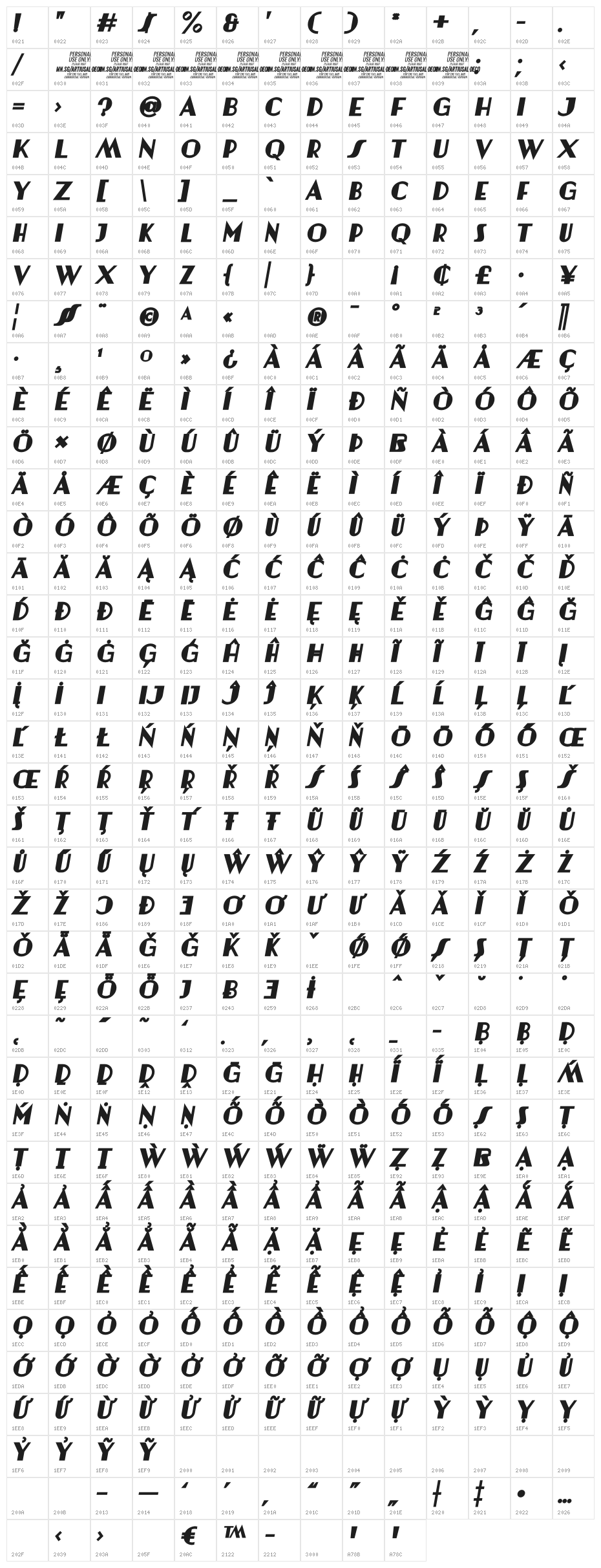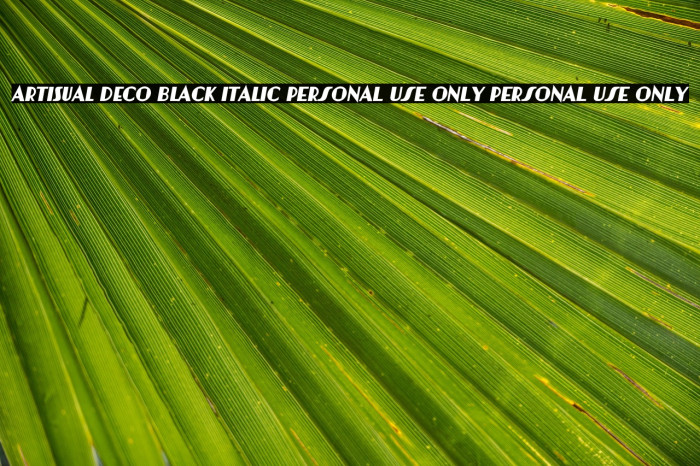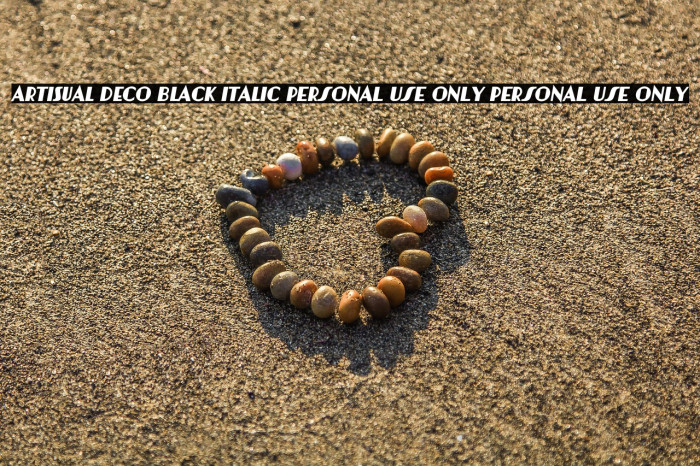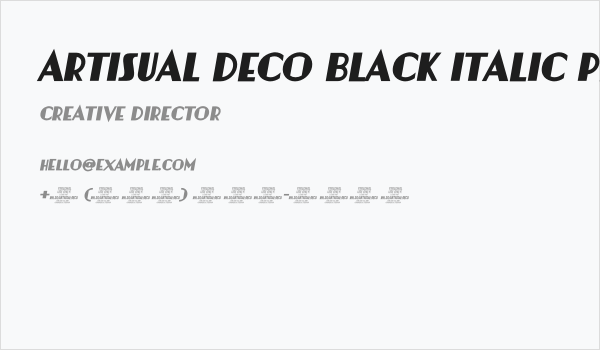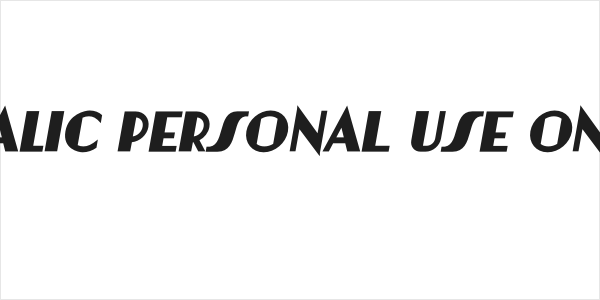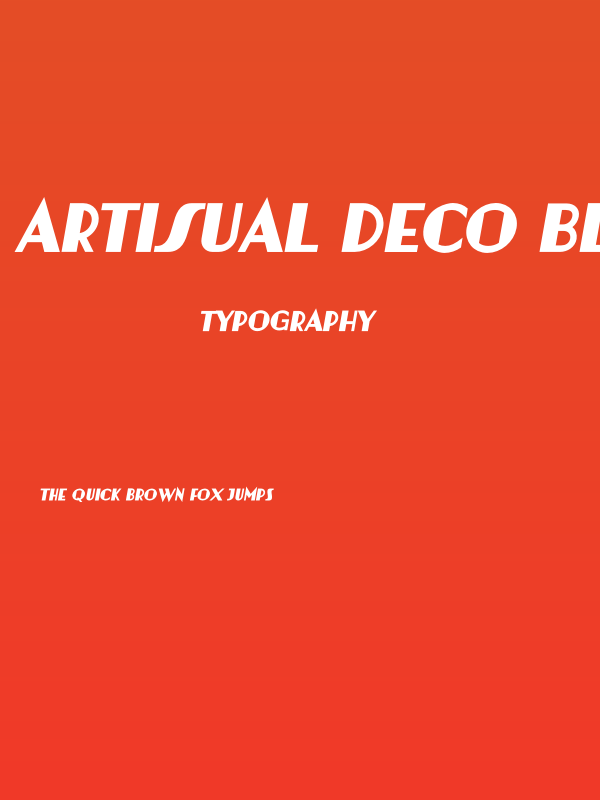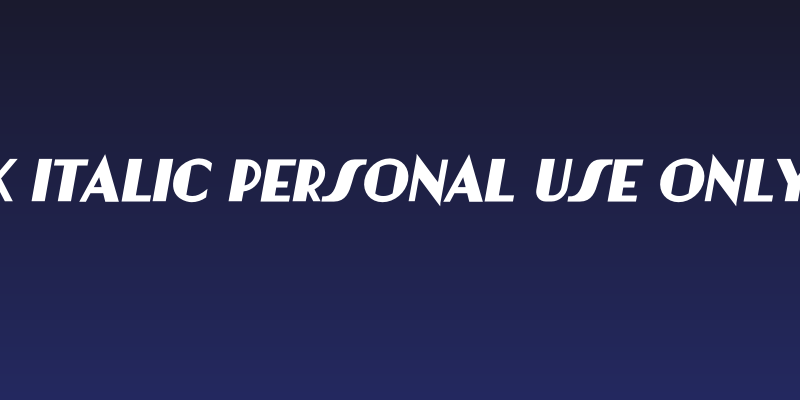
Artisual Deco Black Italic PERSONAL USE ONLY Font
Artisual Deco Black Italic PERSONAL USE ONLY Description
This font exhibits a bold and dynamic style with a strong Art Deco influence. The characters are sharply angled and italicized, creating a sense of movement and energy. The uppercase and lowercase letters maintain a consistent slant, enhancing the italic effect. The strokes are thick and uniform, contributing to a high contrast appearance. The special characters are designed with the same bold and angular style, ensuring visual coherence across all glyphs. This font's distinctive geometric shapes and sharp edges make it stand out, ideal for projects that require a touch of vintage elegance combined with modern flair.
| Overall Style | Vintage, Modern |
| Proposed Projects | Ideal for branding, posters, headlines, and any design project seeking a vintage yet modern aesthetic. |